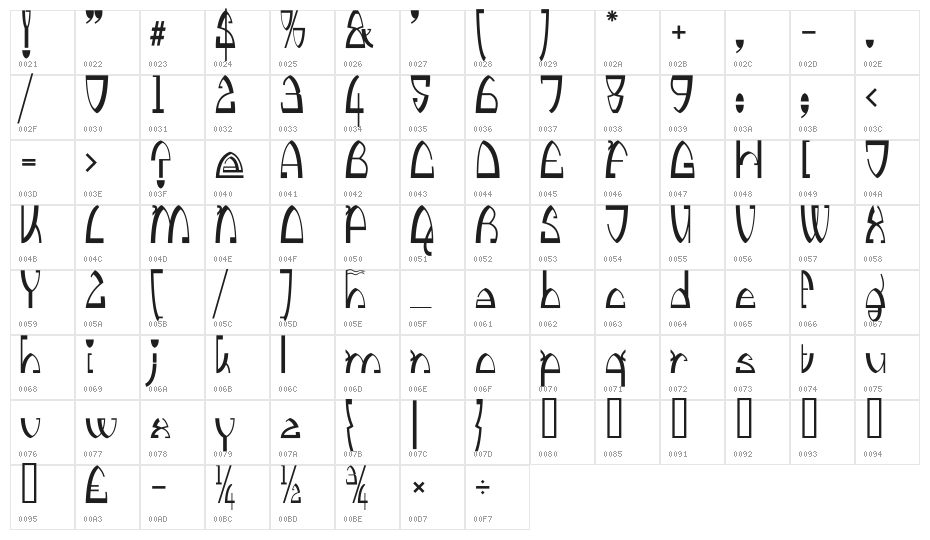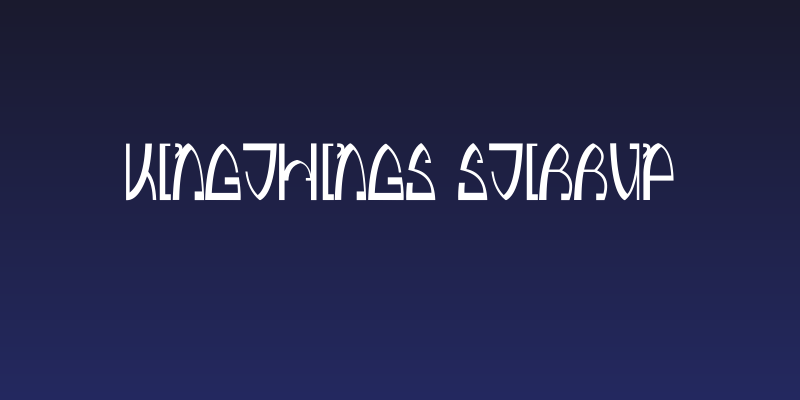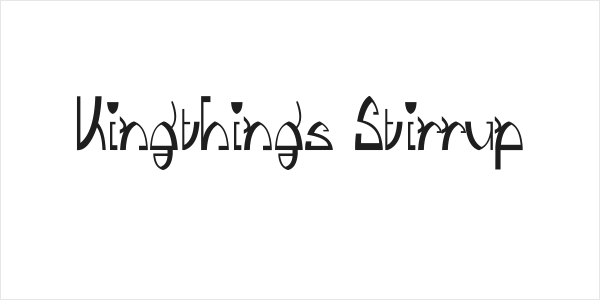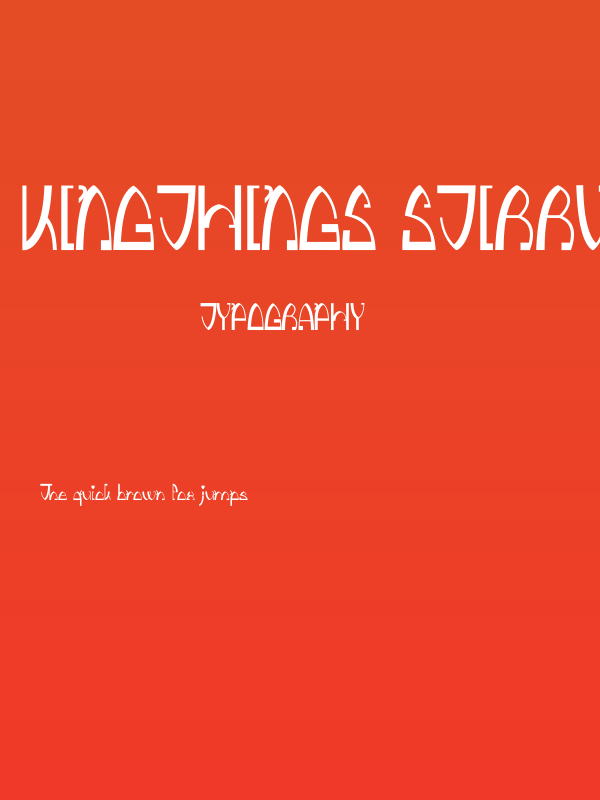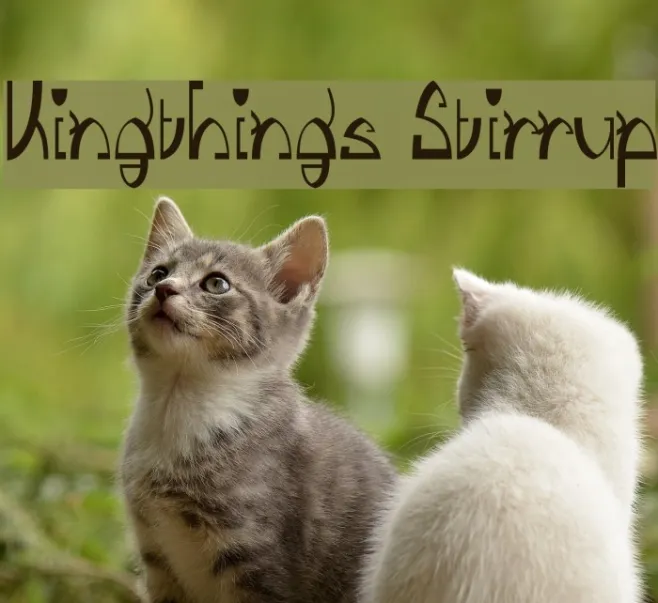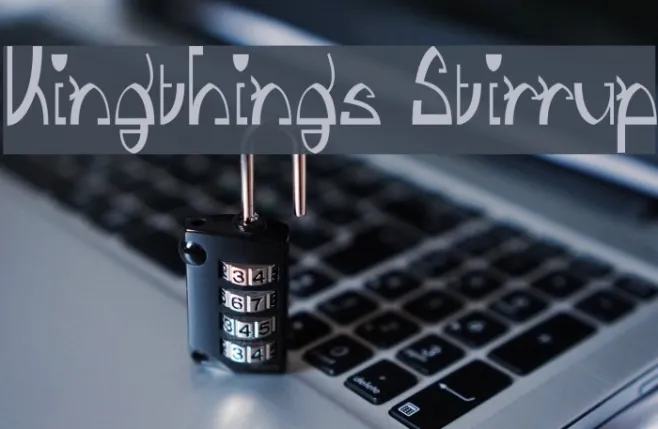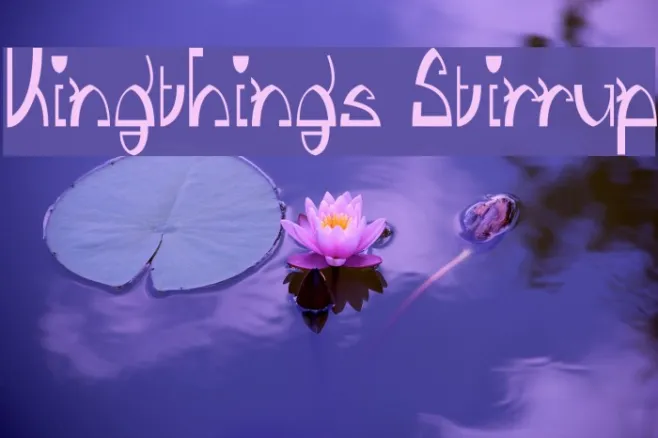
Kingthings Stirrup Font
Kingthings Stirrup Description
This font features a unique and playful design with a distinctively whimsical character. The uppercase letters are bold and have a quirky, almost theatrical flair, with exaggerated curves and angles that give them a lively appearance. The lowercase letters maintain this playful style, with some characters featuring unexpected twists and turns. The numbers are equally stylized, adding to the font's overall charm. Special characters are creatively designed, enhancing the font's decorative appeal. This font is ideal for projects that require a touch of fun and creativity.
| Proposed Projects | Ideal for children's books, playful branding, creative posters, and whimsical invitations. |